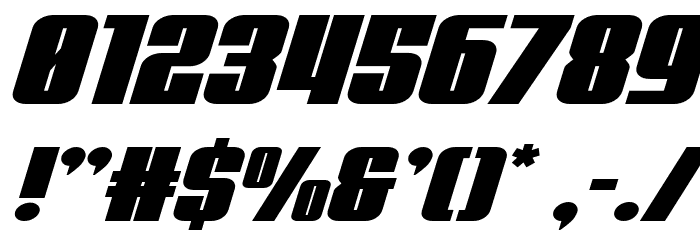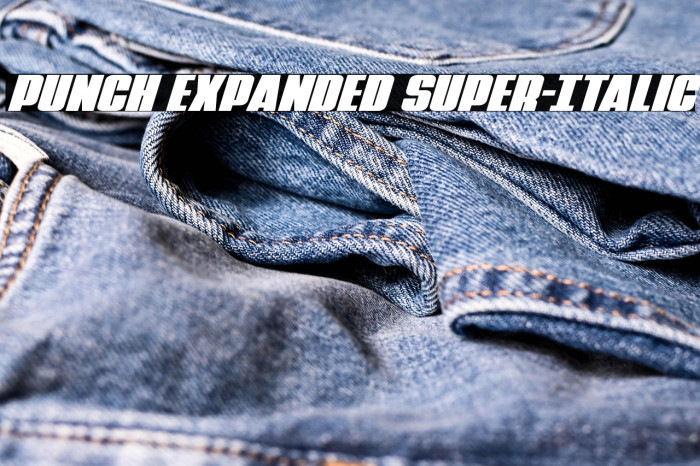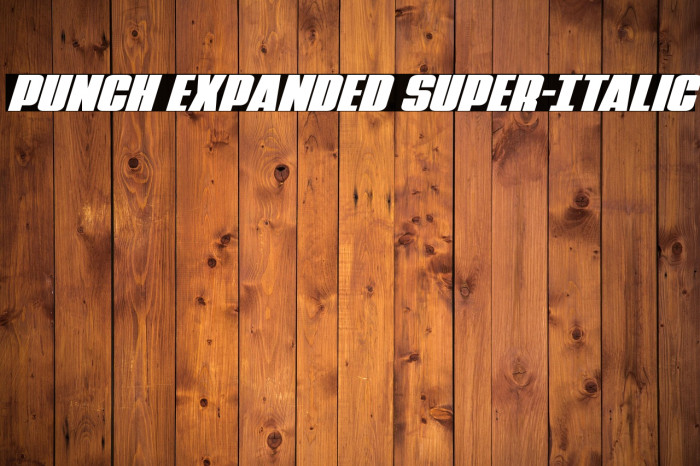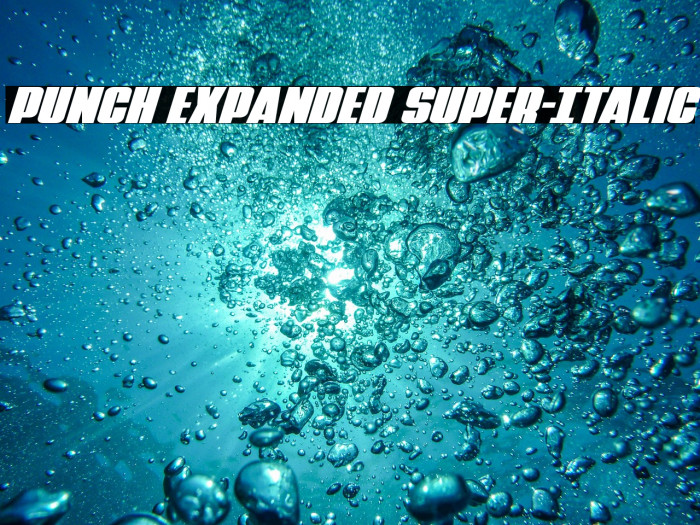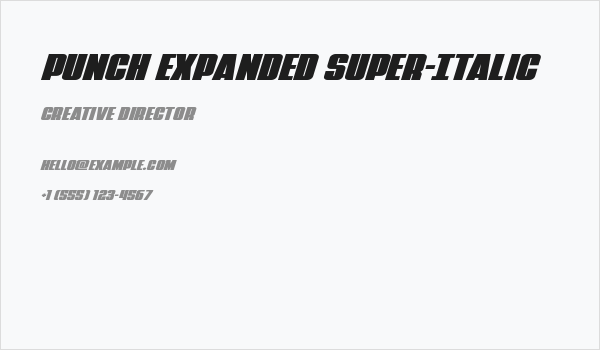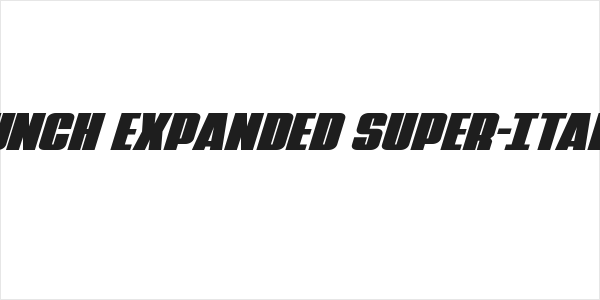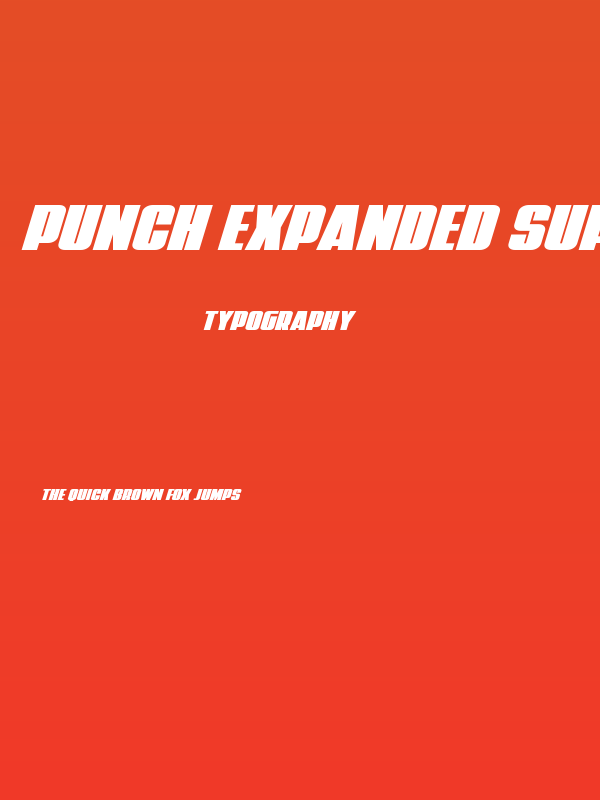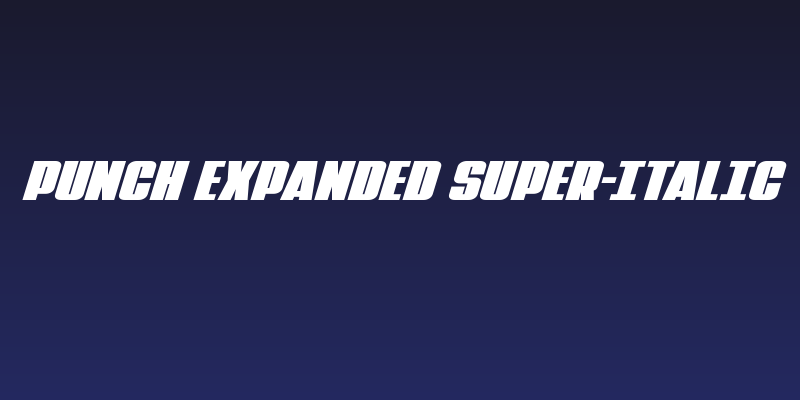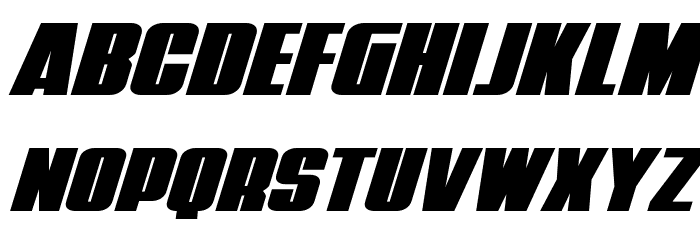
Punch Expanded Super-Italic Font
Punch Expanded Super-Italic Description
This font exhibits a bold and dynamic style with a strong presence. The characters are heavily slanted, giving it an italicized appearance that enhances its energetic and forward-moving look. The expanded width of the letters adds to its boldness, making it stand out prominently. The strokes are thick, providing a high contrast that emphasizes each character's shape. This font is ideal for making a statement, with its aggressive and impactful design that commands attention.
| Proposed Projects | Ideal for sports branding, action movie posters, dynamic advertising campaigns, and any project needing a bold, energetic typeface. |